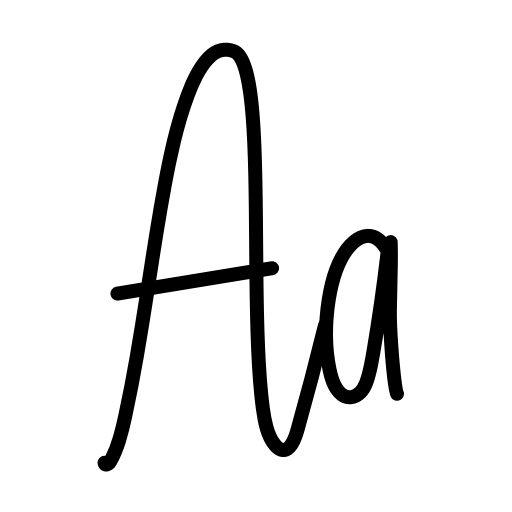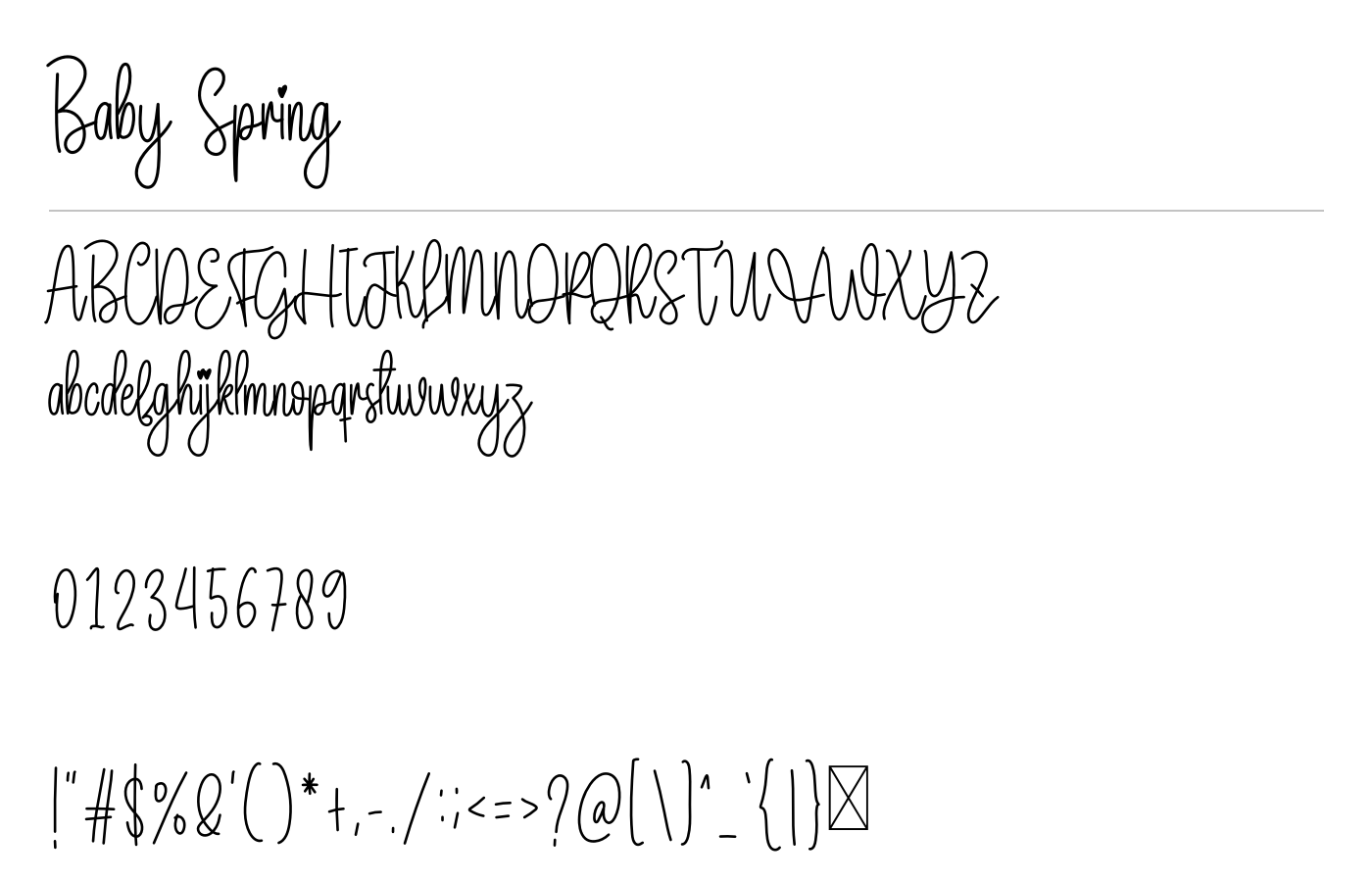
Baby Spring is a delicate, handwritten script font with a playful and whimsical feel, characterized by its tall, narrow letterforms and gentle, flowing curves. Featuring thin, consistent strokes and charming heart details on certain letters, it works beautifully for lighthearted, personal, or creative projects such as invitations, branding for children’s products, and casual headlines. This font’s friendly and approachable style adds a touch of warmth and personality wherever it’s used.
Baby Spring Font
About Baby Spring Font